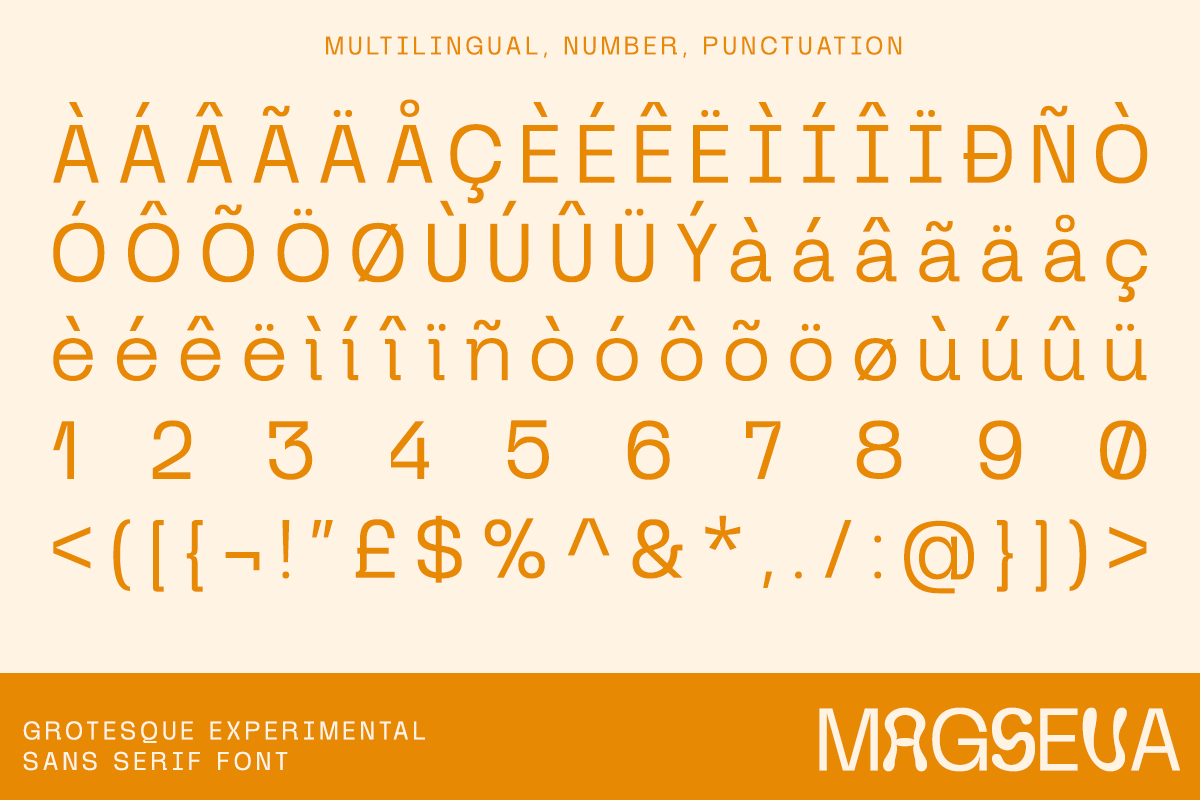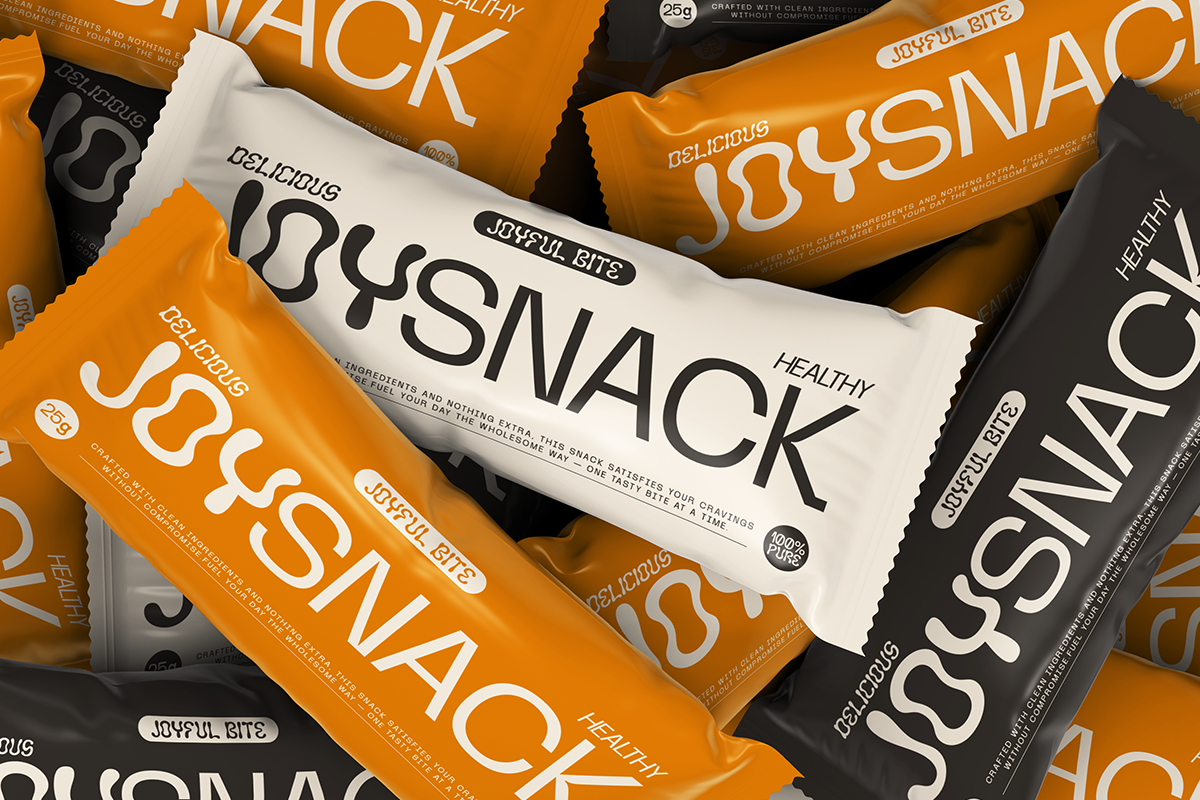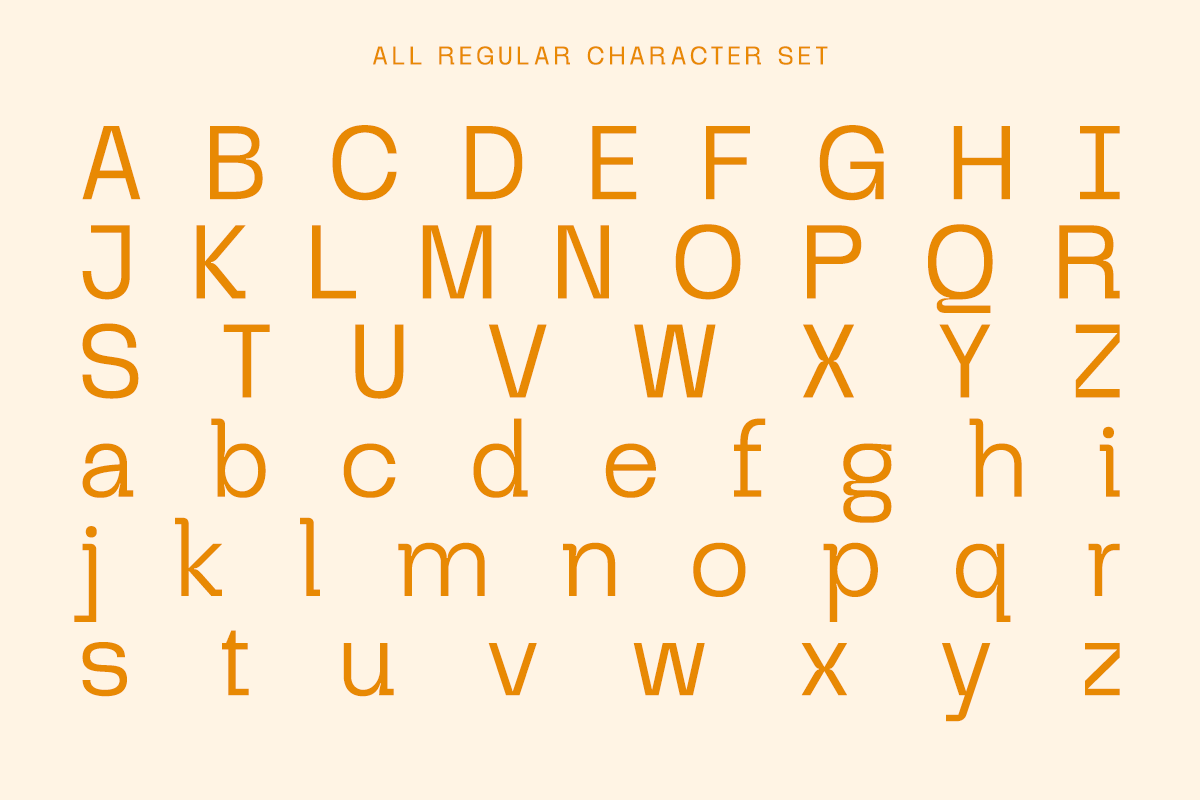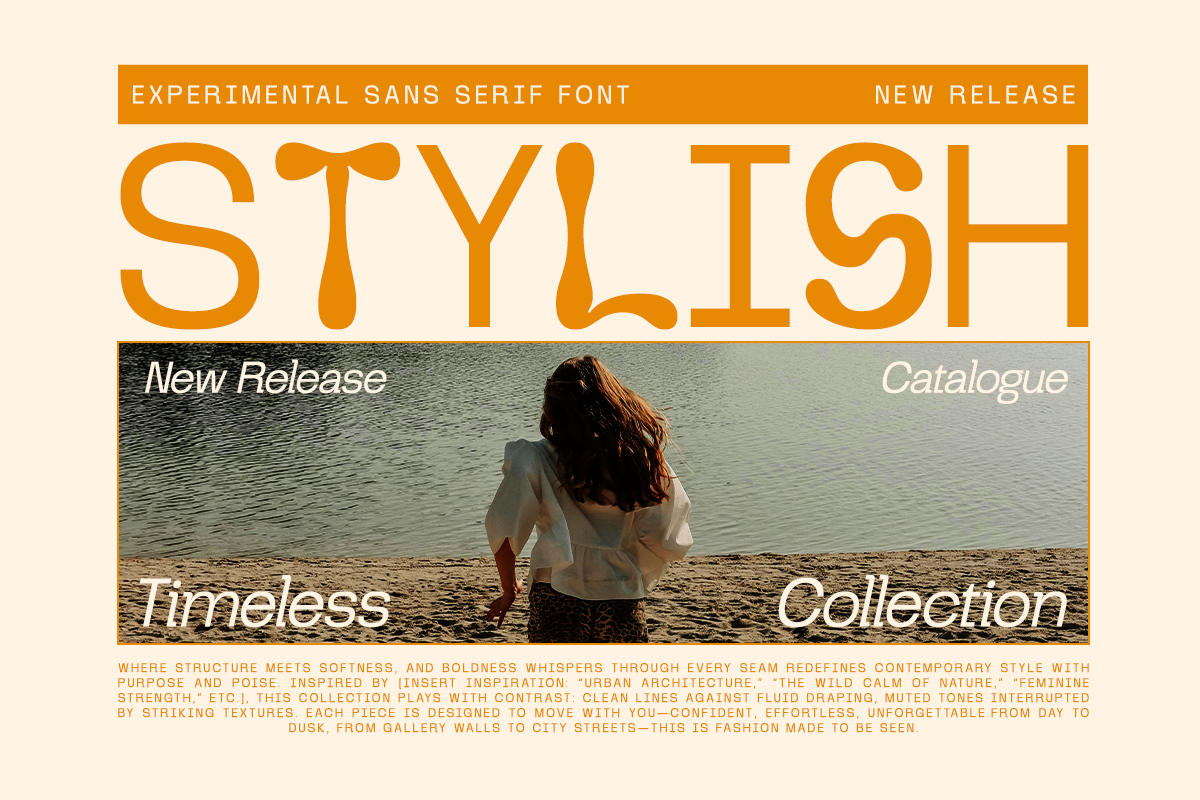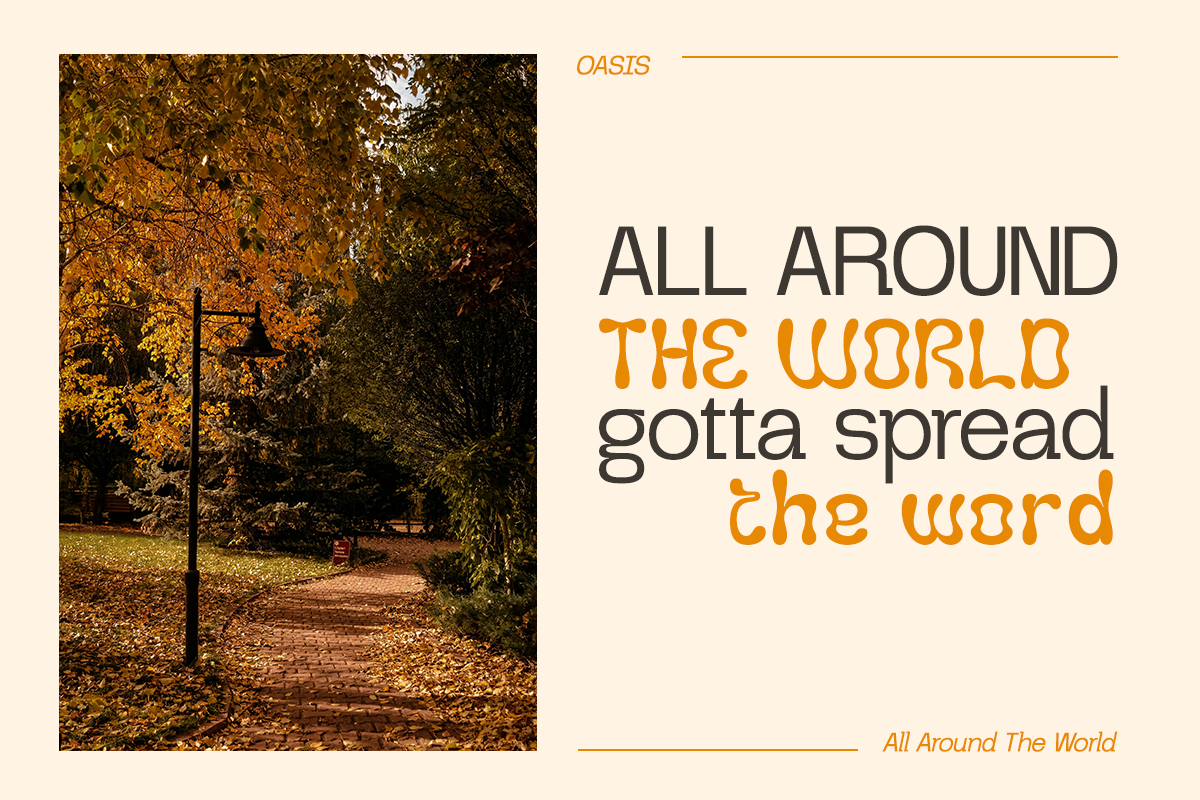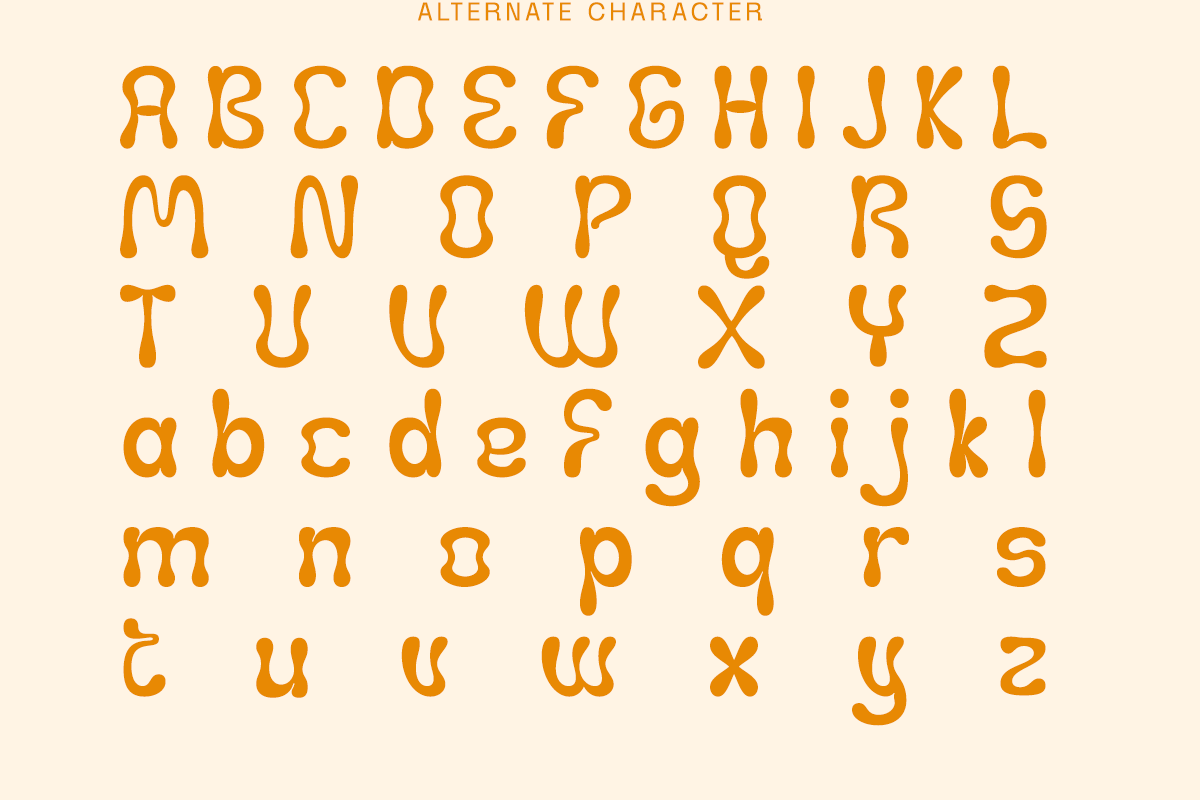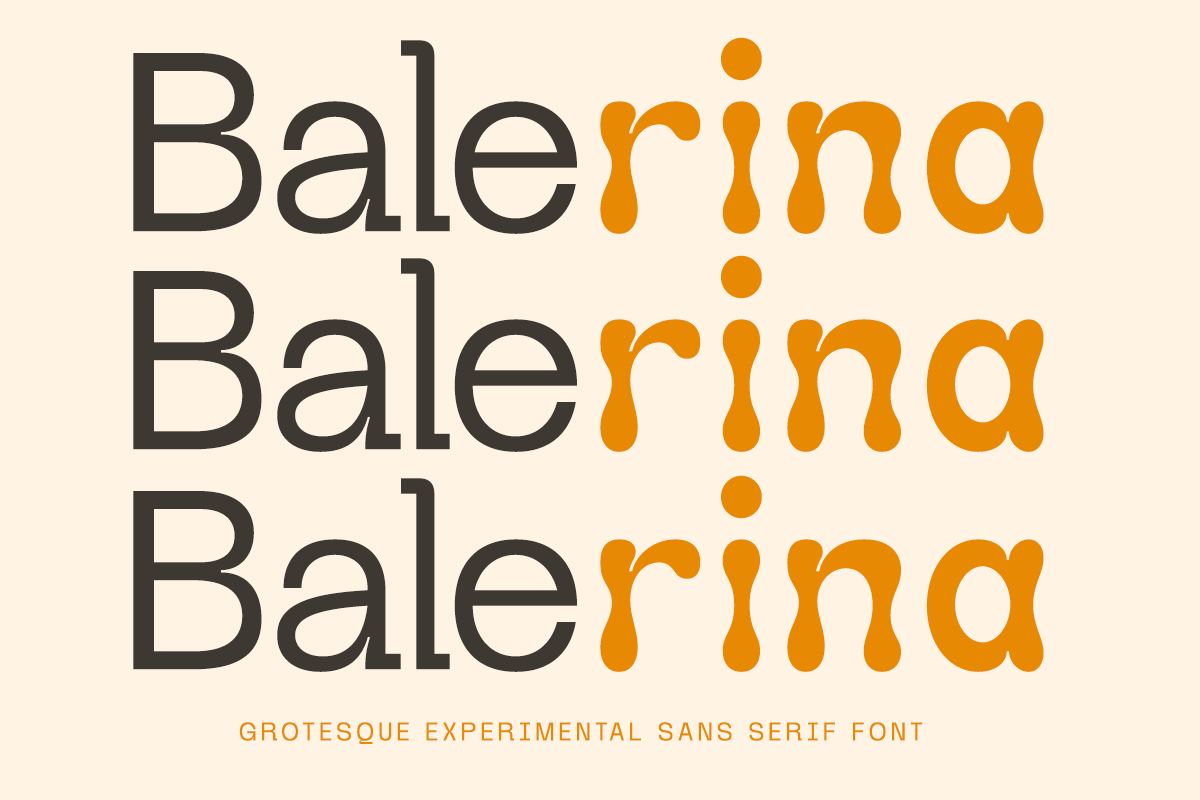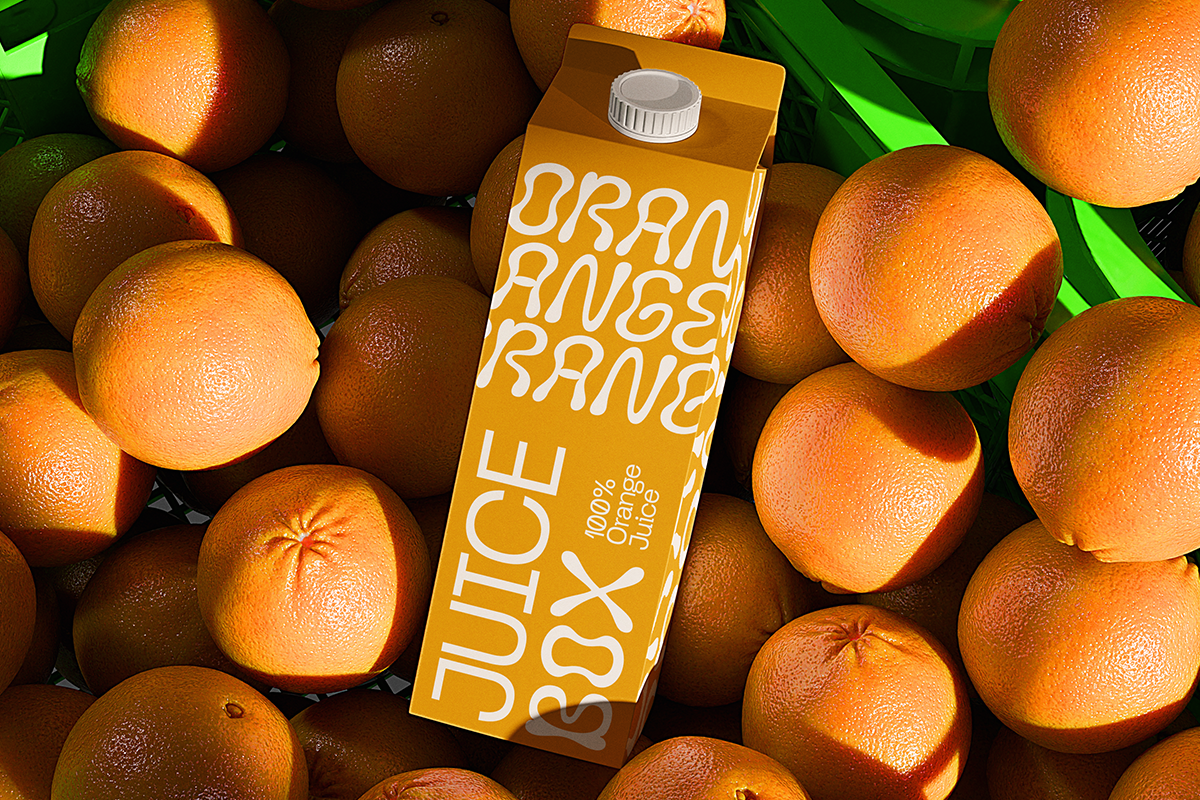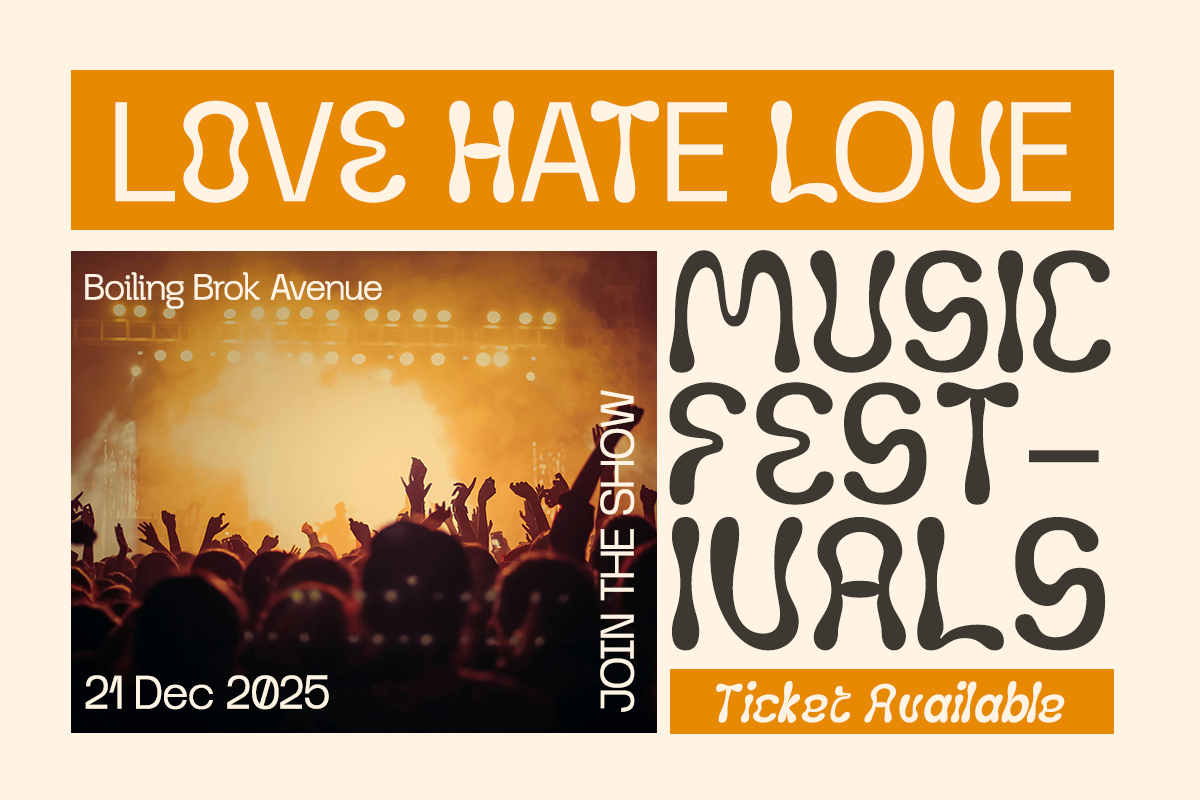
Magseva - Grotesque Experimental
Magseva is an experimental grotesque sans serif font . Grotesque sans serif structure combines groovy and unexpected curves, bringing a fresh perspective to modern typography Its clean and professional appearance makes it suitable for modern typography, providing a contemporary touch to your designs. This pack can be used to create anything as you wish, logos invitation cards, wedding cards, birthday cards, home decor, packaging holiday gifts, party decorations, print on fabrics and so much more.
- Stylish Alternates